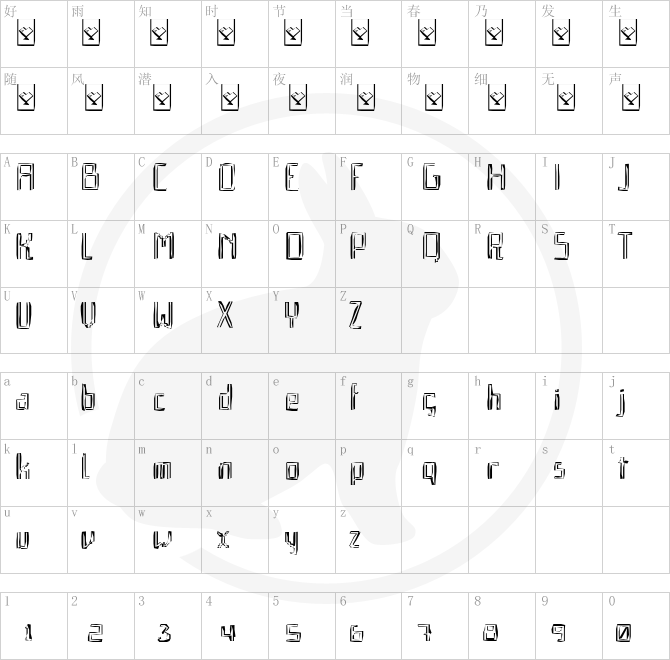
- Font Name:Qebrada
Qebrada.ttf is a very beautiful artistic font, Qebrada.ttf is widely used in the design and printing of various books and pictures,Qebrada.ttf has a strong visual impact,Qebrada.ttf is a commonly used font in newspapers, magazines and books, and is used in posters, e-commerce Poster design, store design, logo design, font design and other fields.Qebrada.